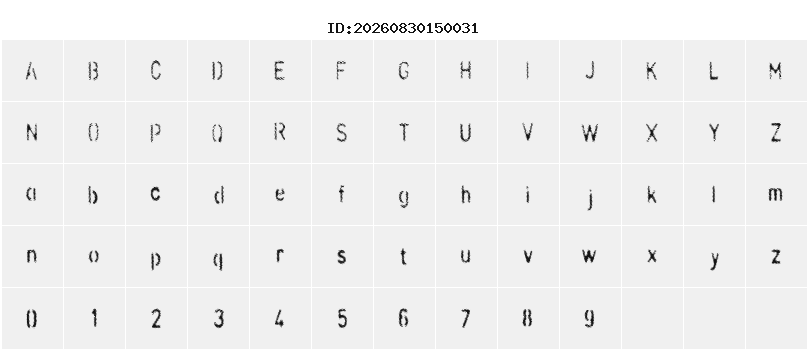
• Font Name: The Hydrogen Prophecy
• Full Font Name: The Hydrogen Prophecy
About The Hydrogen Prophecy .ttf
The Hydrogen Prophecy .ttf is a modern, elegant sans-serif font designed for ultimate readability and visual harmony. Perfect for branding, headlines, web design, and print materials.